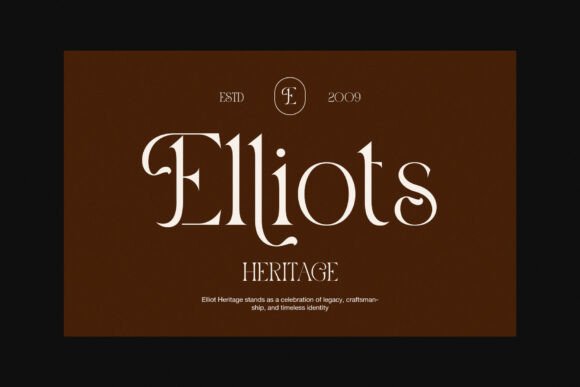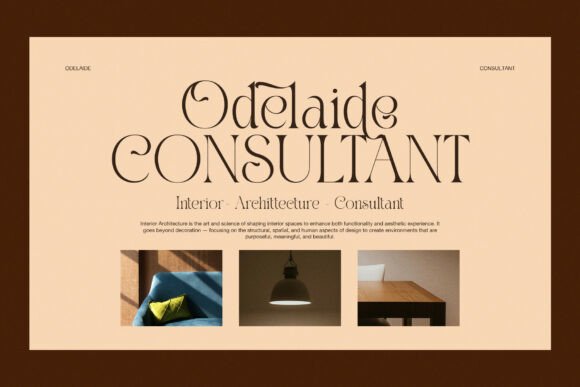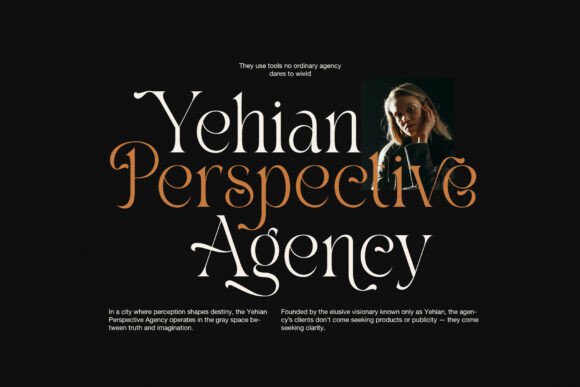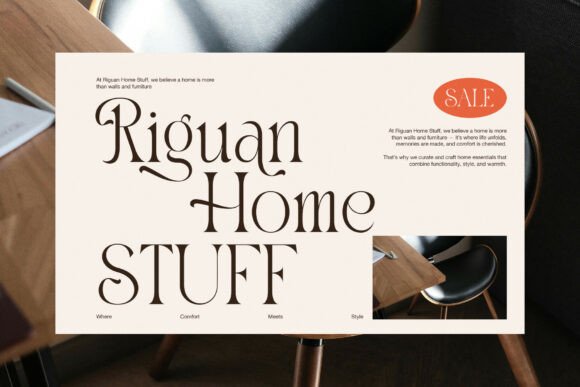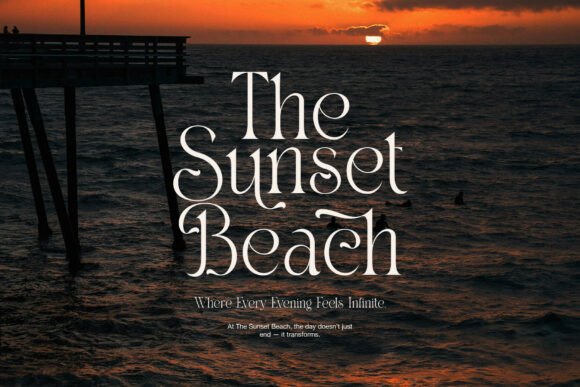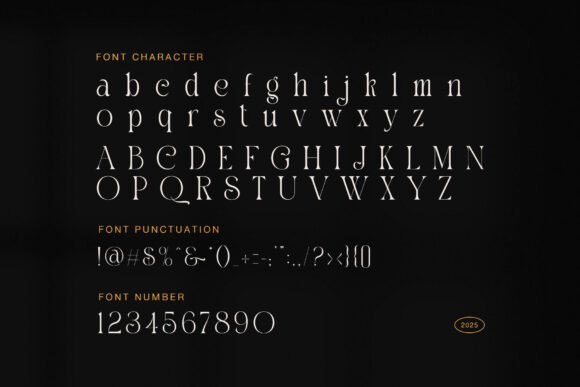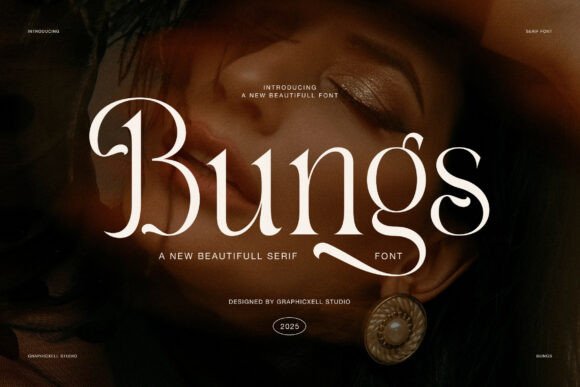
Bungs Font: Elevate Your Designs with Elegance and Sophistication
In the world of typography, a well-crafted font can make all the difference in conveying the desired message and aesthetic of a design project. For designers and crafters seeking to add a touch of elegance and refinement to their work, Bungs Font is an exceptional choice. This stunning serif display font is specifically designed to express beauty, emotion, and a sense of sophistication, making it perfect for a wide range of applications.
Inspiration from Editorial Design and Modern Luxury Aesthetics
Bungs Font draws inspiration from the world of editorial design and modern luxury aesthetics. The font’s creator aimed to combine the classic elements of serif typography with the sleek, contemporary feel of modern luxury design. The result is a font that exudes confidence and refinement, making it ideal for designers looking to create visually stunning and high-end designs.
Key Features of Bungs Font
Bungs Font boasts a range of features that set it apart from other serif fonts. Some of its key characteristics include:
- Smooth Contrast: Bungs Font features smooth contrast, which allows for a harmonious flow of lines and curves. This contrast creates a sense of visual balance, making the font easy to read and aesthetically pleasing.
- Delicate Terminals: The font’s delicate terminals add a touch of elegance and sophistication to the letterforms. These terminals help to create a sense of refinement and luxury, making Bungs Font perfect for high-end designs.
- Artistic Details: Bungs Font includes artistic details that enhance the visual flow of the text. These details add a level of craftsmanship to the font, making it stand out from more basic serif fonts.
- Stylish Alternates and Ligatures: The font includes stylish alternates and carefully crafted ligatures, allowing designers to create unique and personalized typography. These alternates and ligatures add a level of versatility to the font, making it suitable for a wide range of design applications.
Applications for Bungs Font
Bungs Font is an incredibly versatile font that can be used in a variety of design applications. Some of the most popular uses for this font include:
- Headlines and Titles: Bungs Font is perfect for creating eye-catching headlines and titles. Its elegant serif structure and smooth contrast make it easy to read, even at large sizes.
- Branding and Logo Design: The font’s refined character and luxurious feel make it an excellent choice for branding and logo design. Bungs Font can help to create a sophisticated and high-end image for businesses and organizations.
- Editorial Design: Bungs Font is inspired by editorial design, making it a natural fit for publications, magazines, and newspapers. Its elegant serif structure and artistic details add a touch of sophistication to any editorial design.
Why Choose Bungs Font?
With so many fonts available, why choose Bungs Font for your design projects? Here are just a few reasons:
- Timeless yet Fresh: Bungs Font combines classic serif elements with modern luxury aesthetics, making it feel both timeless and fresh. This font will never go out of style, ensuring that your designs remain relevant for years to come.
- Elegant and Refined: Bungs Font exudes elegance and refinement, making it perfect for designers looking to create high-end designs. Its sophisticated feel is sure to impress clients and audiences alike.
- Versatile and Customizable: With its stylish alternates and carefully crafted ligatures, Bungs Font offers a high level of versatility and customizability. Designers can create unique and personalized typography that reflects their brand’s personality.
In conclusion, Bungs Font is an exceptional choice for designers and crafters seeking to add a touch of elegance and sophistication to their work. Its inspiration from editorial design and modern luxury aesthetics, combined with its range of features and applications, make it a versatile and refined font that is sure to elevate any design project.